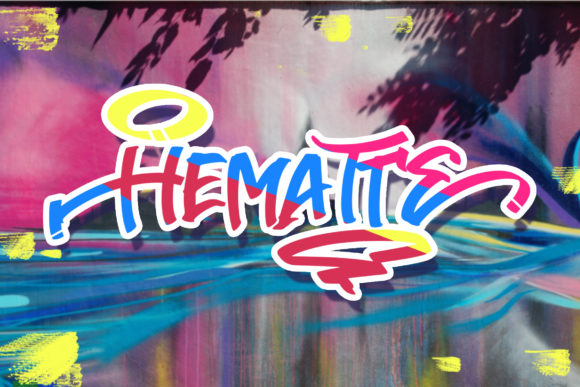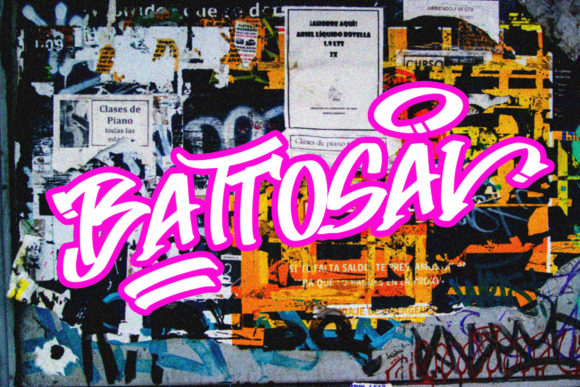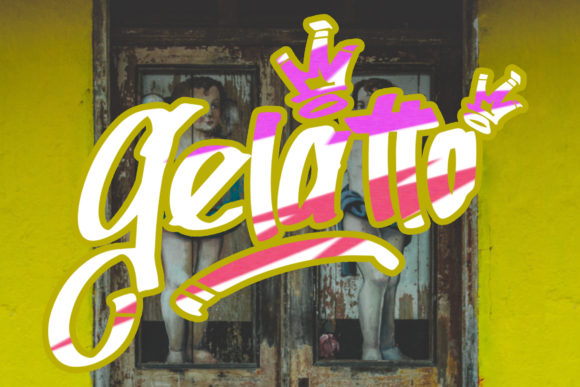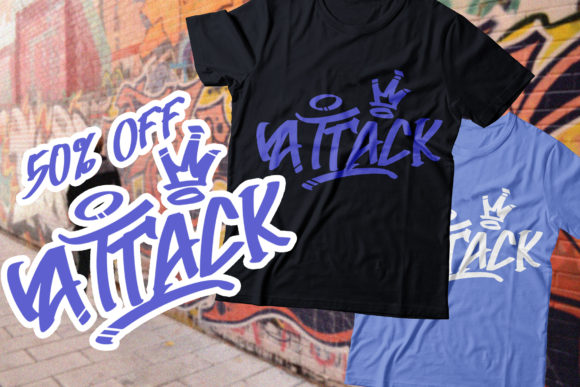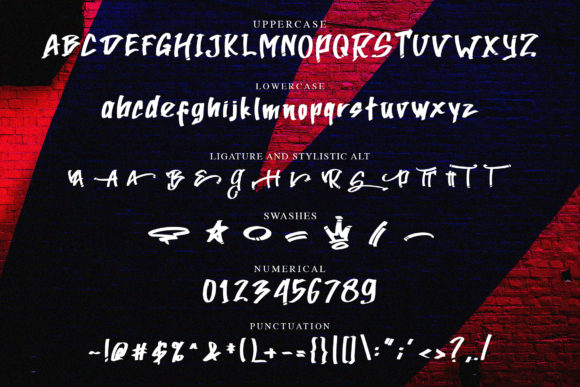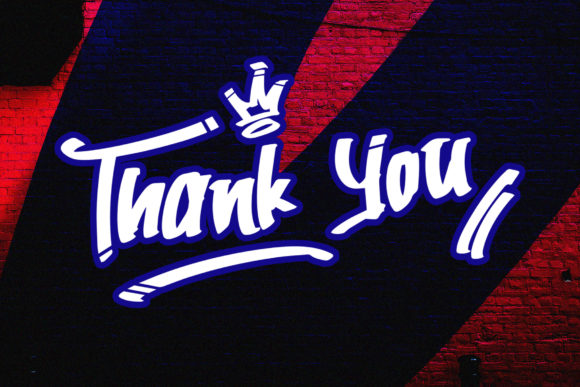
Introducing Attethi Font: The Ultimate Graffiti Style for Your Creative Projects
Are you looking for a font that can add a touch of street art to your designs? Look no further than Attethi Font, a unique graffiti font that is sure to make your projects stand out. With its bold and eye-catching style, Attethi is perfect for magazines, t-shirt designs, street fashion, and any other project that requires a street art look.
What is Attethi Font?
Attethi Font is a display font that is inspired by the vibrant and dynamic world of graffiti art. Its unique and stylized letterforms are designed to capture the spirit of street art, making it perfect for designers and crafters who want to add a touch of urban flair to their projects.
Key Features of Attethi Font
• Unique Graffiti Style: Attethi Font features a one-of-a-kind graffiti style that is sure to grab attention.
• Eye-Catching Display Font: With its bold and stylized letterforms, Attethi is perfect for display purposes, such as headlines, titles, and logos.
• Versatile: Attethi can be used for a wide range of projects, including magazines, t-shirt designs, street fashion, and more.
Creative Uses for Attethi Font
Attethi Font is a versatile font that can be used for a wide range of creative projects. Here are some ideas to get you started:
• Magazine Covers: Use Attethi to create eye-catching magazine covers that are sure to stand out on newsstands.
• T-Shirt Designs: Add a touch of street art to your t-shirt designs with Attethi, perfect for fashion brands and streetwear enthusiasts.
• Street Fashion: Use Attethi to create bold and stylish street fashion designs, such as posters, flyers, and social media graphics.
• Logos and Branding: Attethi can be used to create unique and memorable logos and branding materials for businesses and organizations.
Tips for Using Attethi Font
Here are some tips for getting the most out of Attethi Font:
• Experiment with Colors: Attethi looks great in bold and bright colors, so don’t be afraid to experiment with different color schemes.
• Play with Texture: Add texture to your designs by combining Attethi with different textures and patterns.
• Mix and Match: Combine Attethi with other fonts and design elements to create unique and interesting visual effects.
Attethi Font is a unique and versatile graffiti font that is perfect for designers and crafters who want to add a touch of street art to their projects. With its bold and eye-catching style, Attethi is sure to make your designs stand out. Whether you’re working on a magazine cover, t-shirt design, or street fashion project, Attethi is the perfect choice.